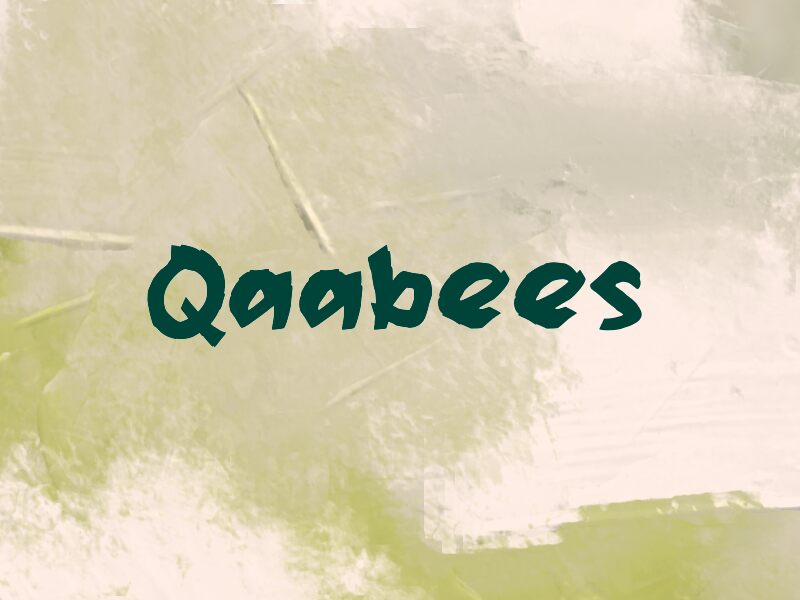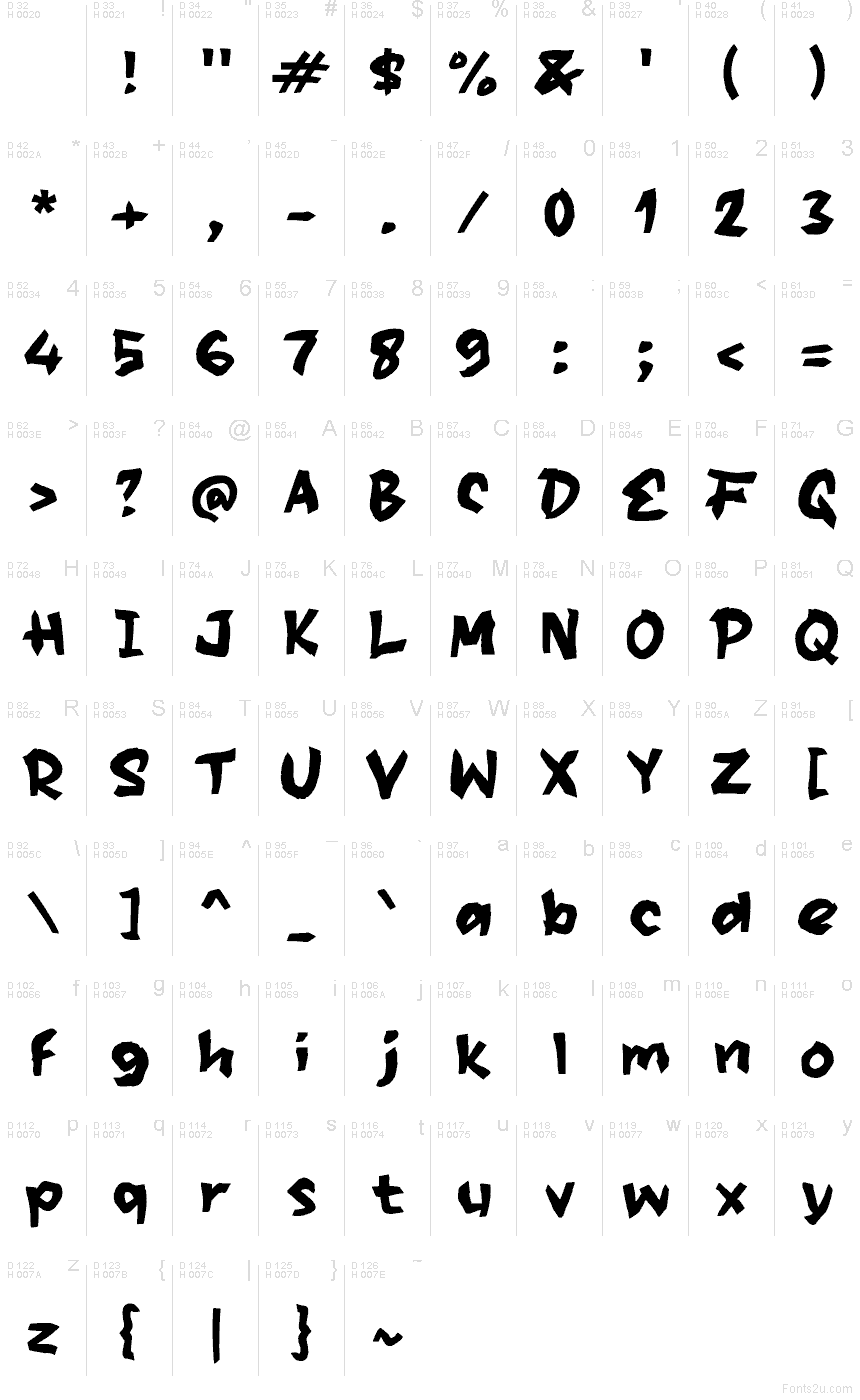
Qaabees
Qaabees font by wep is a free graffiti font that feels like fresh marker ink dragged fast across a wall. The letters tilt and stagger with a loose, hand-scrawled energy, as if they were sketched in one impatient sweep. Chunky strokes, rough edges, and tight spacing give it a loud, compressed presence that jumps out even in small word bursts.
Using Qaabees, you can push bold personality into streetwear logos, album covers, skate or urban posters, YouTube thumbnails, zines, and edgy event flyers. This free font shines when set large and short—think punchy titles or tags—then paired with a clean, neutral sans serif for supporting text so the wild, inky shapes stay center stage.